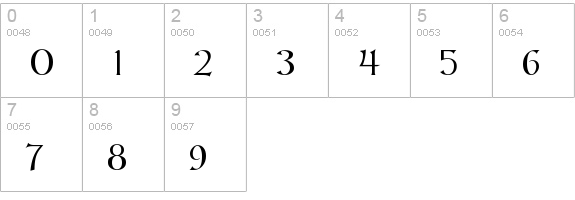
TolkienUpright Regular Font Details
TolkienUpright Regular is the standard, neutral variant in the TolkienUpright typeface family \xE2\x80\x94 well suited to general body text, paragraphs, and standard typographic work.
TolkienUpright Regular font is a stunning display font that exudes elegance and sophistication. With its meticulously crafted letterforms and refined serifs, this font captures the essence of timeless design. The clean and crisp lines of the characters create a sense of clarity and readability, making it suitable for a wide range of projects. This font is imbued with a touch of classic charm, reminiscent of the typography found in old books and manuscripts. Its upright and balanced posture adds a sense of stability and professionalism to any text, making it perfect for formal invitations, luxurious branding, or prestigious editorial designs. TolkienUpright Regular font is not only aesthetically pleasing, but it also offers practicality. Its versatile nature allows it to adapt to various design styles, whether it be vintage, modern, or even futuristic. Its legibility remains intact even at small sizes, ensuring that your message is conveyed with clarity and impact. As an added bonus, TolkienUpright Regular font is freely available to download at FontsMarket.com. This means that you can easily access this exceptional font without any cost. So, whether you're a professional designer or a creative enthusiast, you can enjoy the benefits of this remarkable typeface without breaking the bank. In conclusion, TolkienUpright Regular font is a harmonious blend of elegance and functionality. Its timeless appeal and versatility make it a valuable asset for any design project. Download it for free at FontsMarket.com and elevate your designs to new heights of sophistication and professionalism.